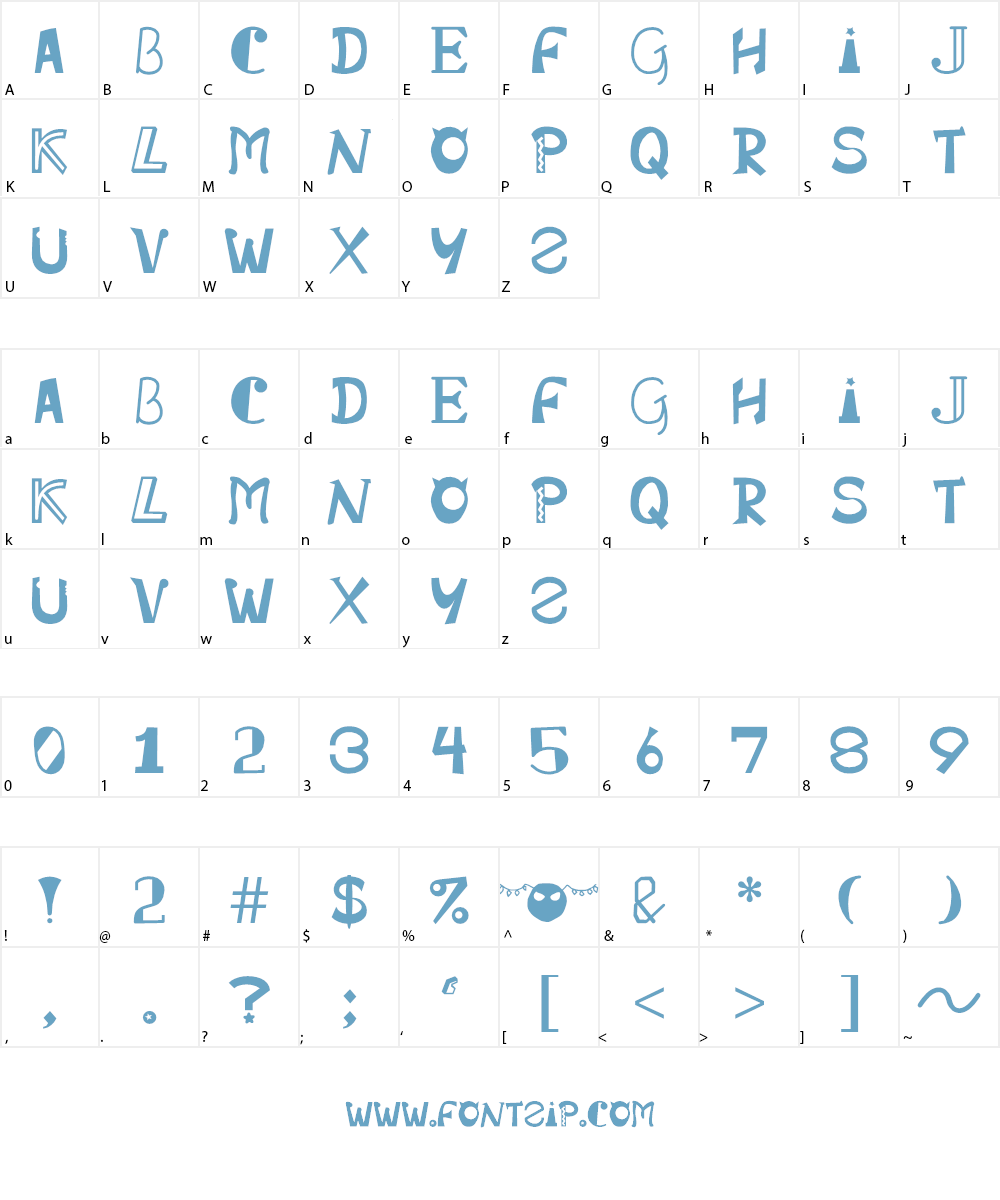
Cranberry Trap is a festive ransom note font to be made for kids. It is the only ransom note font in the Spell Card Tribute series. The title of the font was named after Flandre Scarlet's one of spell cards:
English: Taboo "Cranberry Trap"
Japanese: 禁忌「クランベリートラップ」